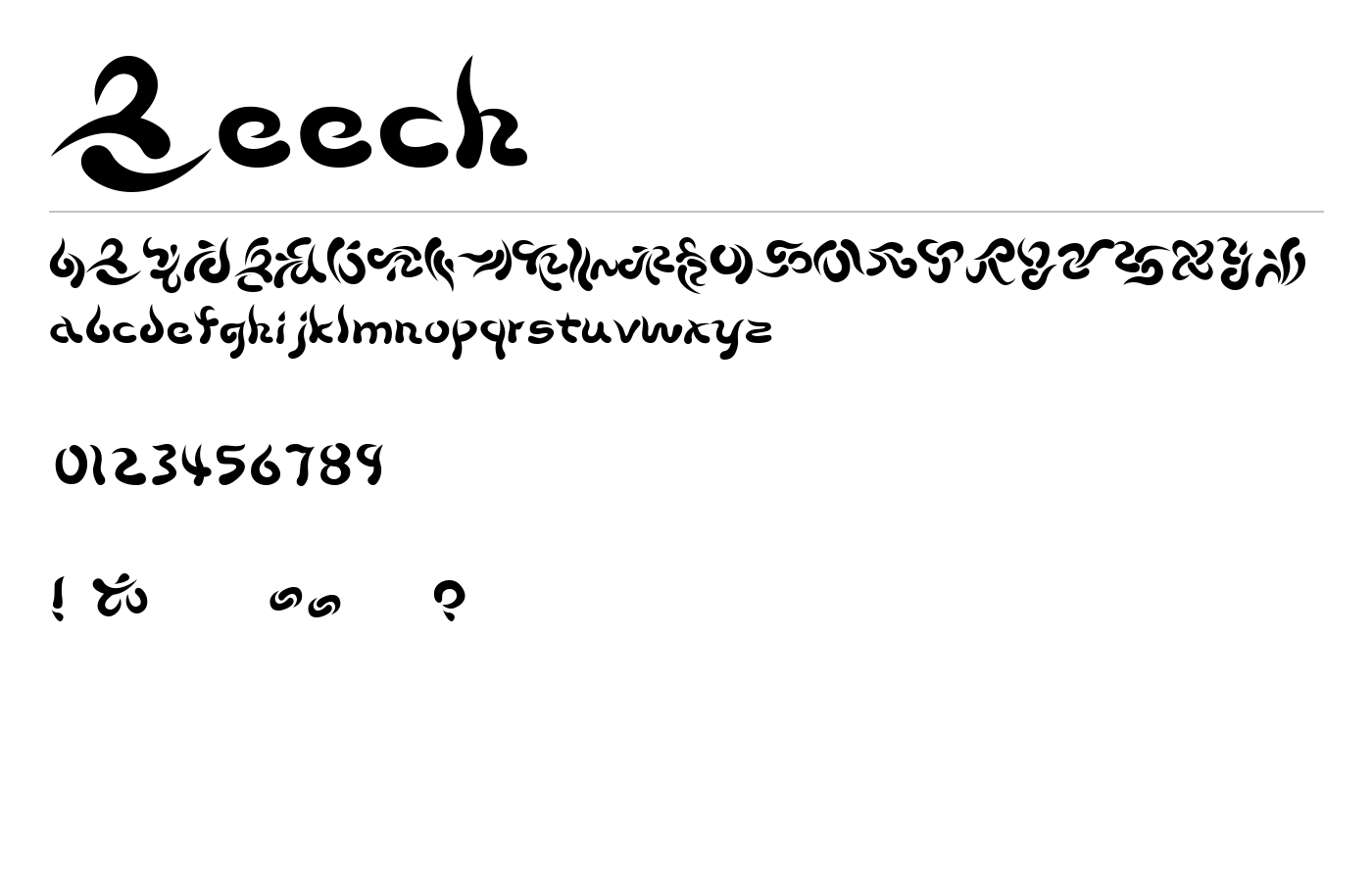
Beech is a unique decorative serif font with a whimsical, almost calligraphic flair, featuring thick, rounded strokes and unusual, organic shapes that give it a playful, artistic personality. Its distinct letterforms and high stroke contrast make it ideal for creative projects, logos, posters, and branding that aim to stand out with a lively and imaginative style. This font works best when used sparingly for headlines or display purposes to add a bold, expressive touch.
Beech Font
About Beech Font